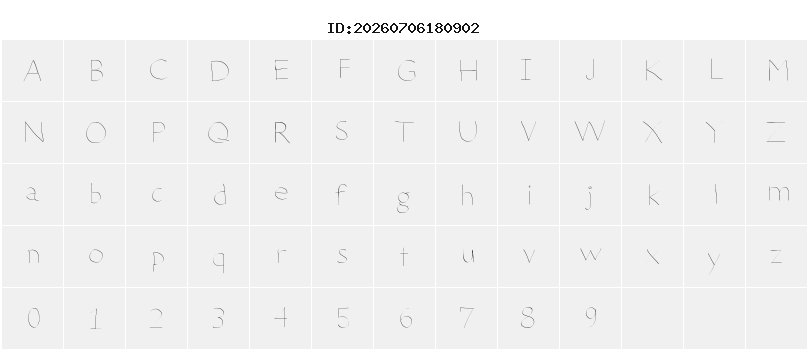
About DeterioratetheInternet.ttf
DeterioratetheInternet.ttf is a modern, elegant sans-serif font designed for ultimate readability and visual harmony. Perfect for branding, headlines, web design, and print materials.